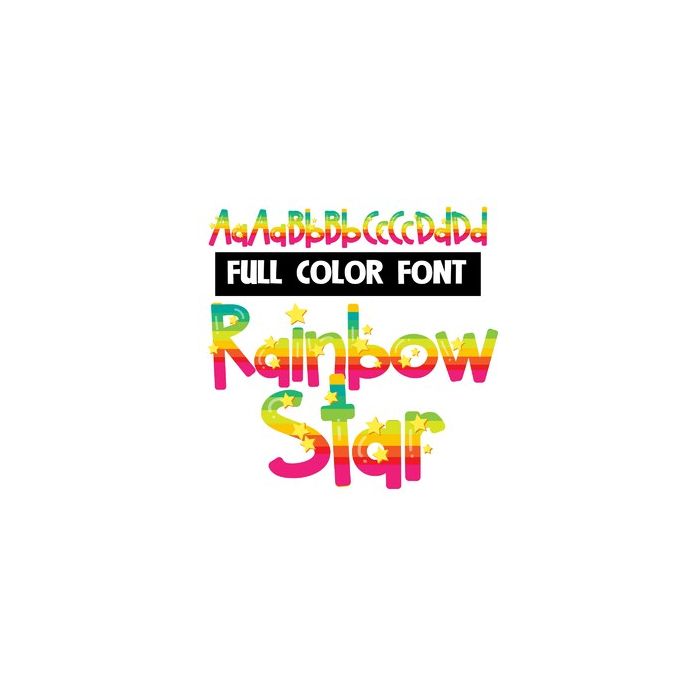
This full-color font features a rainbow of stripes and stars throughout. There is an alt case w/ of letters without stars you can access through your system or Silhouette's glyph map.